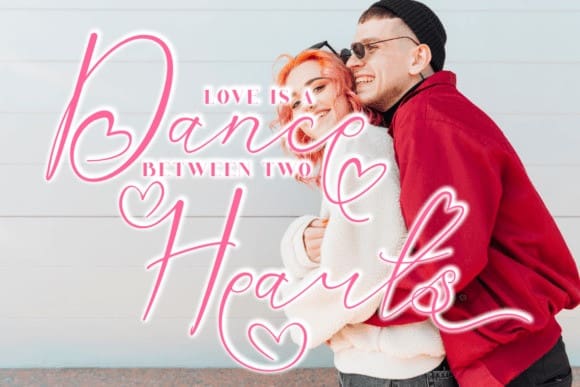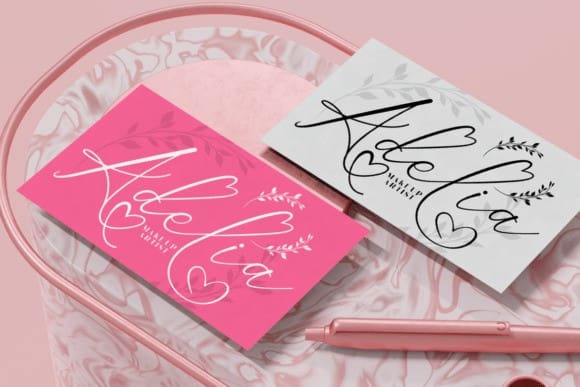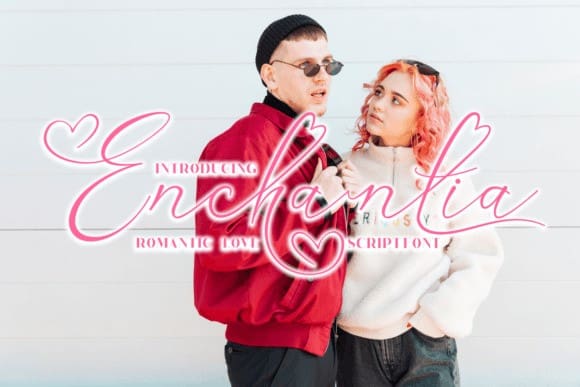
Enchantia Font
Enchantia Font – Romantic Love Script Font, a digital font that captures the essence of love and passion in every curve. This font is not just a typeface; it’s a declaration of affection, designed to bring warmth and charm to your most heartfelt projects. With its fluid lines and graceful flourishes, Enchantia Font is the perfect choice for those special moments that deserve a touch of beauty and sophistication.
Whether you’re designing a logo that speaks to the heart, branding that resonates with emotion, crafting an invitation that sets the tone for love, or creating a poster that calls out to the soul, Enchantia ensures your message is delivered with an air of romance. It’s also ideal for business cards that leave a lasting impression, greeting cards that convey genuine sentiments, stickers that spread joy, children’s books that tell tales of love, and magazines that celebrate the art of design.